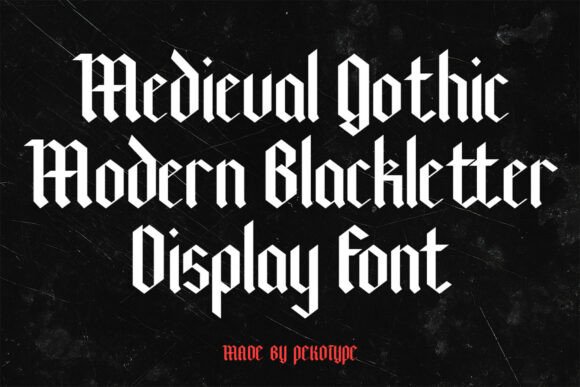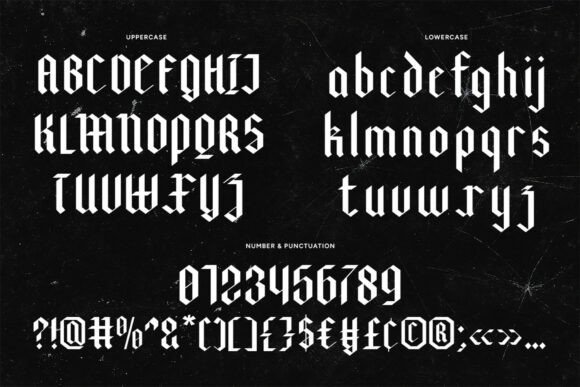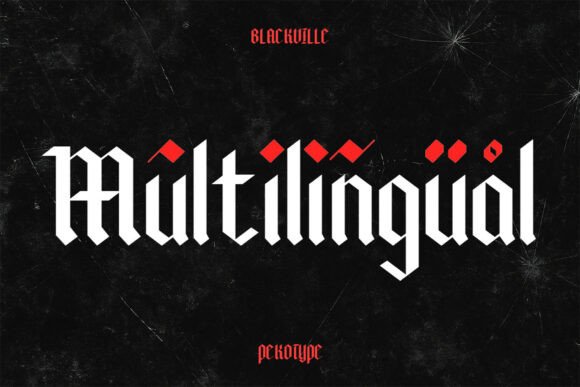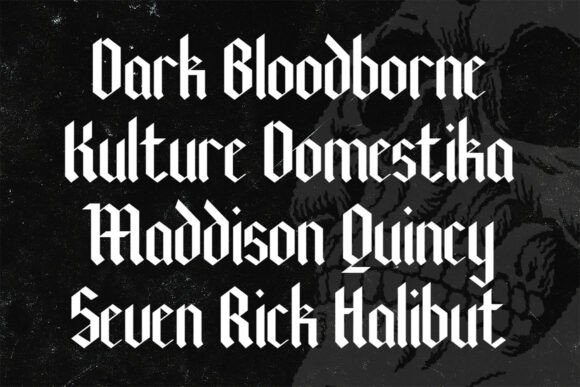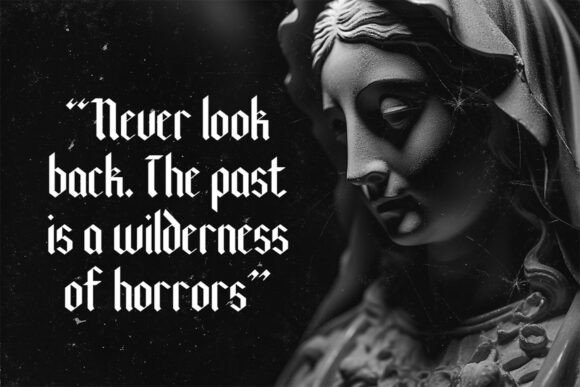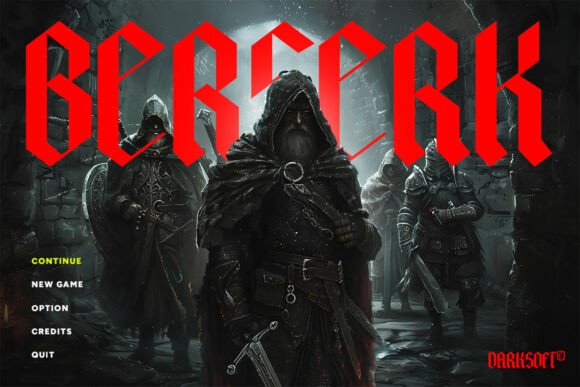
Unleash the Darkness: Introducing Blackville Font
In the world of typography, few fonts evoke the same level of power and mystery as Blackville, a bold gothic blackletter typeface that seamlessly fuses medieval roots with a modern edge. Designed to command attention and dominate the visual landscape, Blackville is the perfect choice for designers and crafters looking to add a unique, aggressive character to their projects.
A Font with a Rich History
Blackville pays tribute to classic blackletter calligraphy, a style of lettering that originated in medieval Europe. Characterized by sharp strokes, angular serifs, and a dark, dramatic flair, blackletter typography was often used in formal documents, such as manuscripts and official decrees. However, Blackville takes this traditional style and infuses it with a modern twist, making it perfect for bold branding projects, metal and hardcore band logos, game titles, and merch design.
Design Features
Blackville’s design features a range of characteristics that set it apart from other fonts. Its sharp strokes and angular serifs give it a bold, aggressive look that’s perfect for making a statement. The font’s dark, dramatic flair adds a touch of mystery and sophistication, making it ideal for designers who want to create visuals that are both powerful and elegant.
Perfect for Metal and Hardcore Band Logos
Blackville is a natural fit for metal and hardcore band logos, where a bold, aggressive character is often required. The font’s dark, edgy aesthetic is perfect for bands that want to convey a sense of power and intensity. Whether you’re designing a logo for a new band or rebranding an existing one, Blackville is a great choice.
Ideal for Game Titles and Merch Design
In addition to its use in metal and hardcore band logos, Blackville is also perfect for game titles and merch design. The font’s bold, attention-grabbing character makes it ideal for game developers who want to create a strong visual identity for their games. Similarly, Blackville’s unique style makes it a great choice for designers who want to create eye-catching merchandise, such as t-shirts, posters, and stickers.
More than Just a Font
Blackville is not just a font – it’s an attitude. It’s perfect for brands that dare to be different, for musicians that break boundaries, and for creatives who thrive in the shadows. Whether you’re designing album covers, signage, or social media graphics, Blackville delivers the raw power and mystique your visuals demand.
Key Features of Blackville
- Bold gothic blackletter typeface: Blackville’s bold, aggressive character makes it perfect for making a statement.
- Medieval roots with a modern edge: Blackville takes traditional blackletter typography and infuses it with a modern twist.
- Sharp strokes and angular serifs: Blackville’s design features sharp strokes and angular serifs, giving it a bold, edgy look.
- Dark, dramatic flair: Blackville’s dark, dramatic flair adds a touch of mystery and sophistication.
- Perfect for metal and hardcore band logos: Blackville’s bold, aggressive character makes it a natural fit for metal and hardcore band logos.
- Ideal for game titles and merch design: Blackville’s unique style makes it perfect for game titles and merch design.
In conclusion, Blackville is a powerful and versatile font that’s perfect for designers and crafters who want to add a unique, aggressive character to their projects. With its bold gothic blackletter typeface, medieval roots, and modern edge, Blackville is ideal for metal and hardcore band logos, game titles, merch design, and bold branding projects. Whether you’re designing album covers, signage, or social media graphics, Blackville delivers the raw power and mystique your visuals demand. So why settle for a ordinary font when you can unleash the darkness with Blackville?